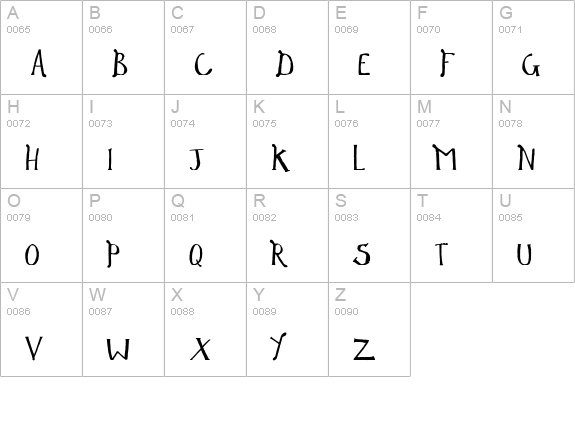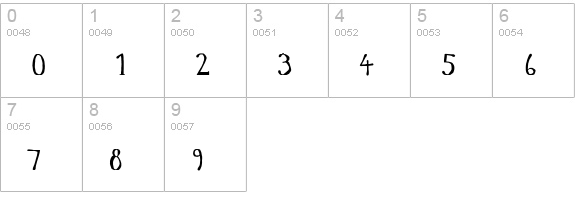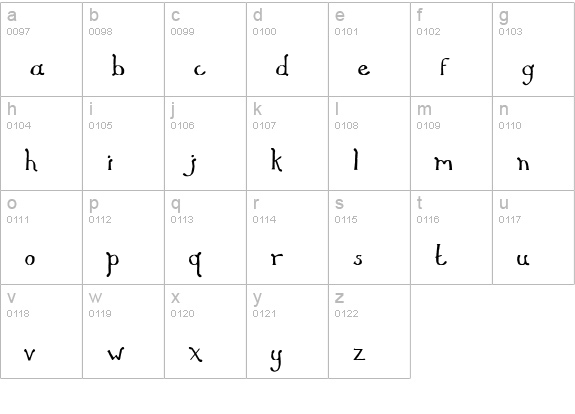
DuckFont is a free for personal use font in the Script > Handwritten category, designed by FontsMarket2023. It has been downloaded 12 times and is available for Windows, Mac and Linux.
Introducing DuckFont, a charming and versatile font that exudes a playful and friendly vibe. With its smooth curves and whimsical design, DuckFont is perfect for a wide range of creative projects, from branding to invitations to social media graphics.
This delightful font is the perfect choice for those looking to add a touch of fun and personality to their designs. Whether you're working on a children's book, a logo for a quirky brand, or simply want to inject some joy into your next project, DuckFont has got you covered.